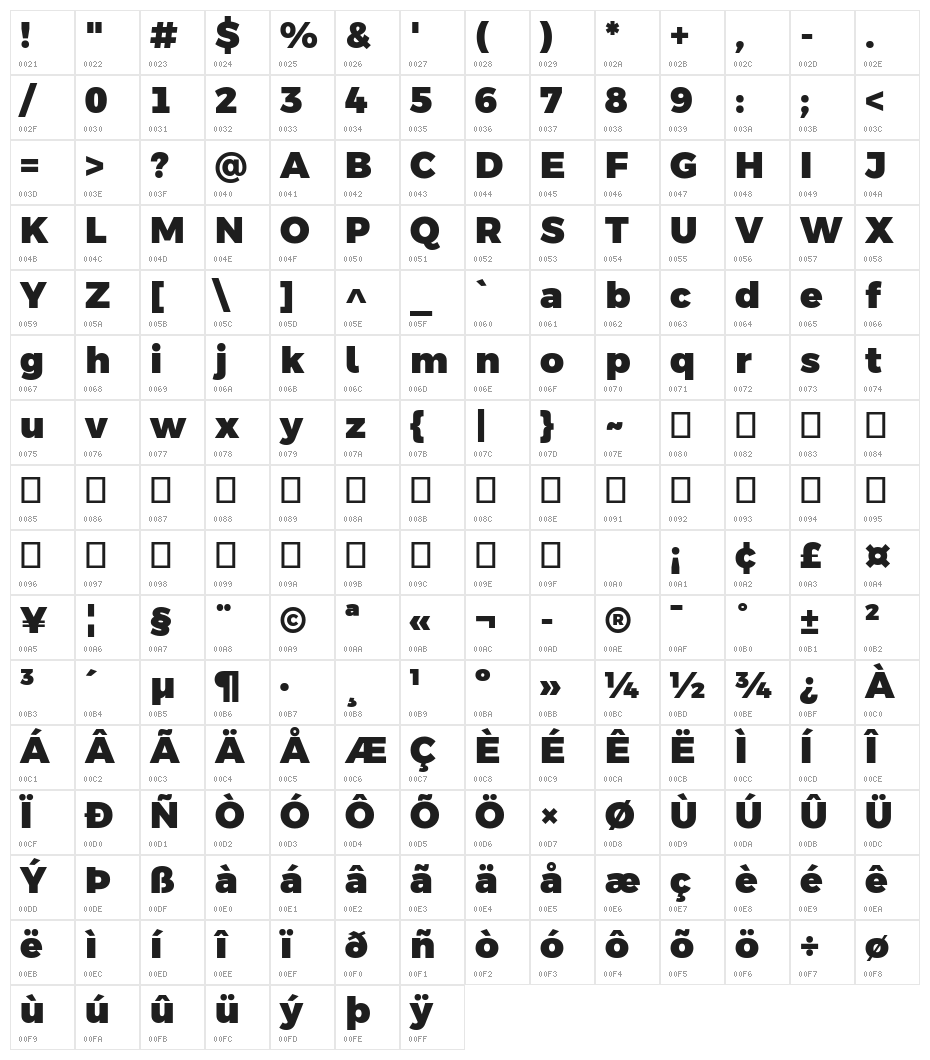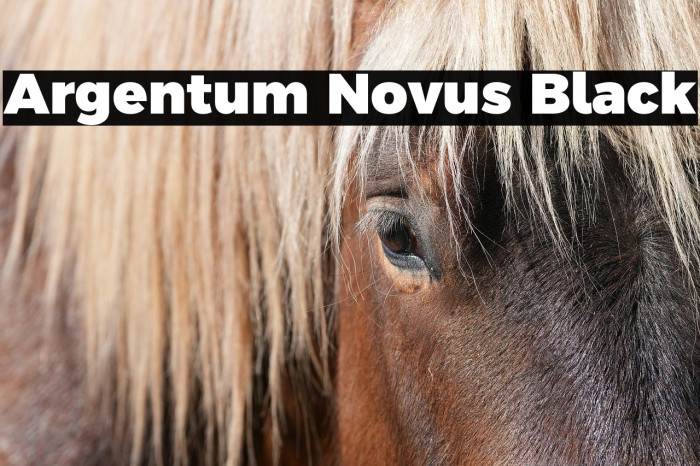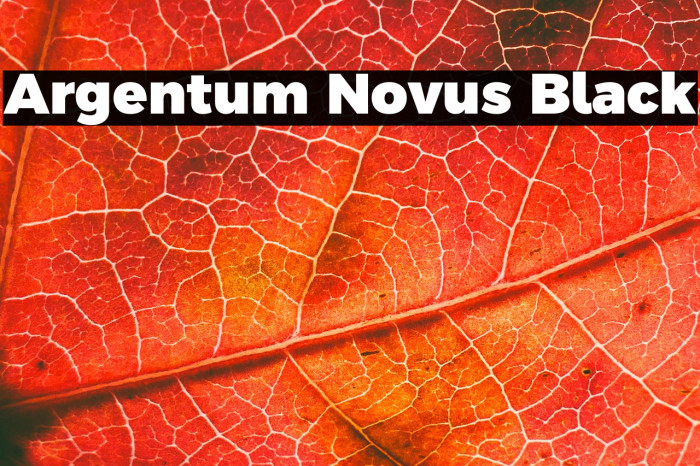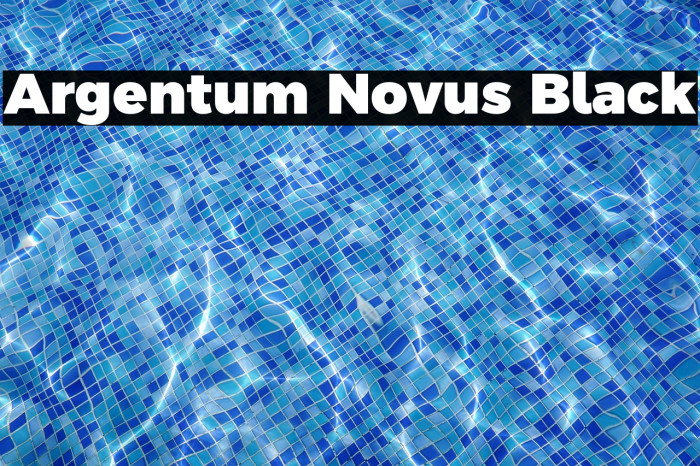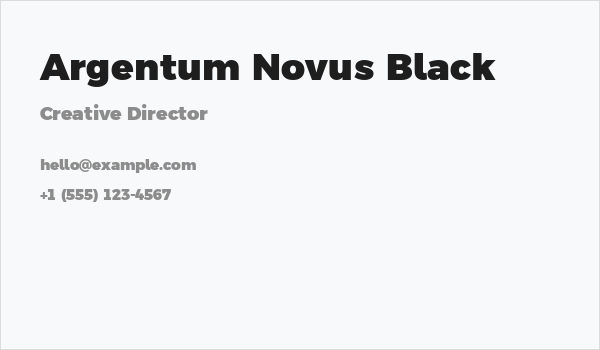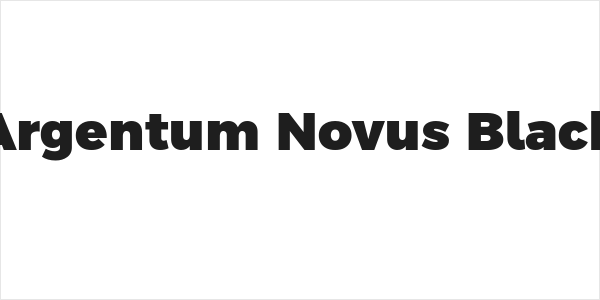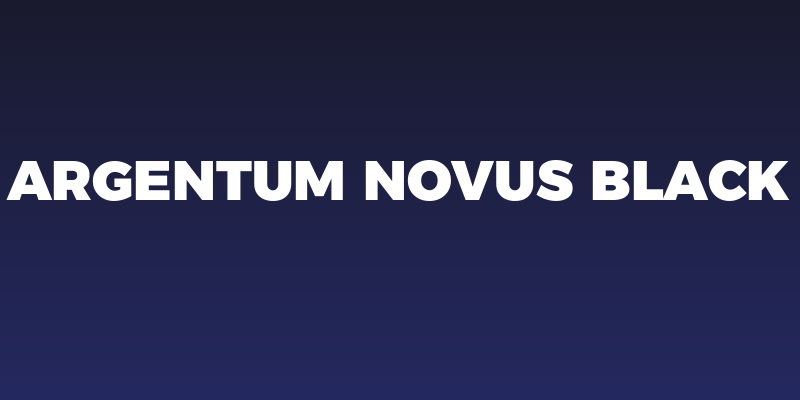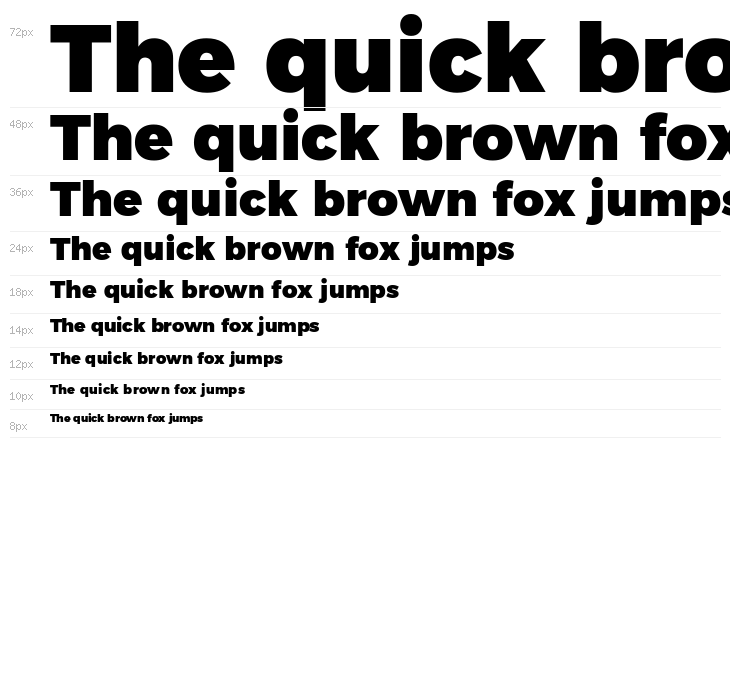
Argentum Novus Black Font
Argentum Novus Black Description
This font exhibits a bold and assertive style, characterized by thick strokes and a strong presence. The uppercase and lowercase letters maintain a consistent weight, providing a uniform appearance across all characters. The numbers and special characters are equally robust, ensuring legibility and impact. Its design is clean and modern, with a slight geometric influence that enhances its contemporary appeal. The font's boldness makes it suitable for attention-grabbing headlines and titles, while its clear structure ensures readability in various applications.
| Proposed Projects | Ideal for branding, advertising, posters, and any design requiring a bold statement. |